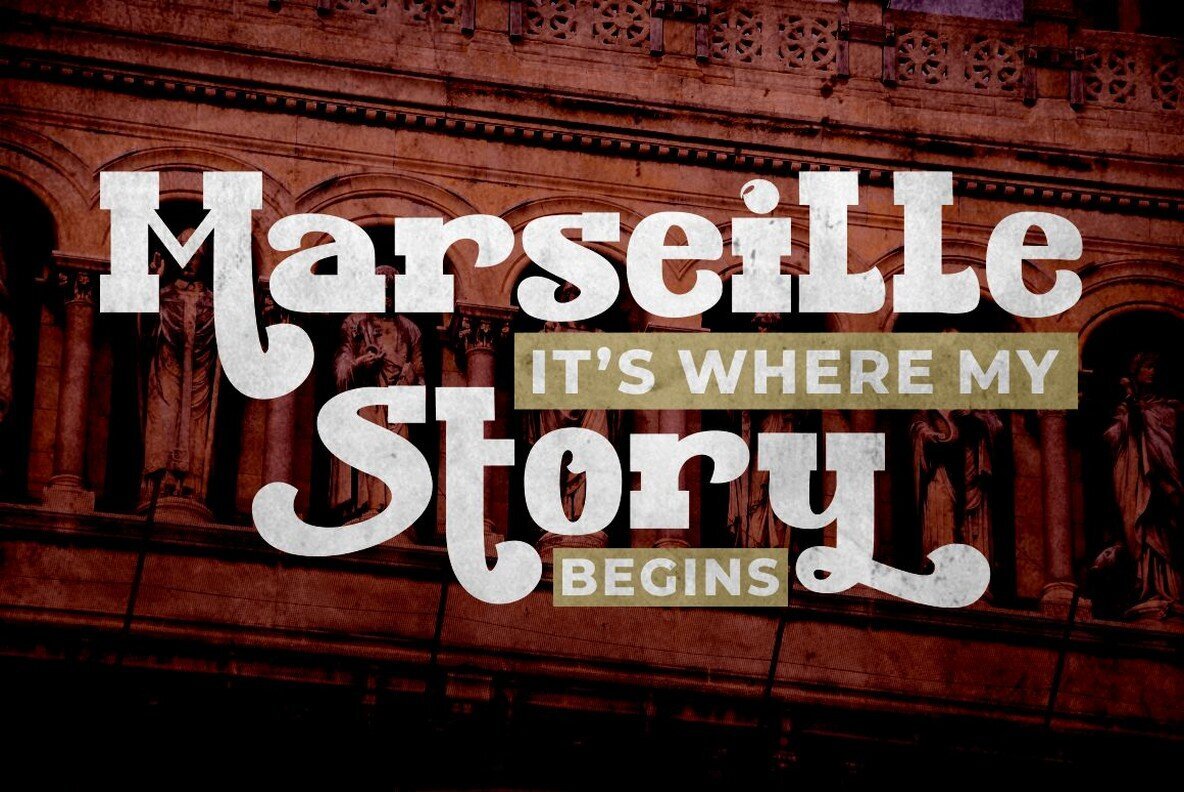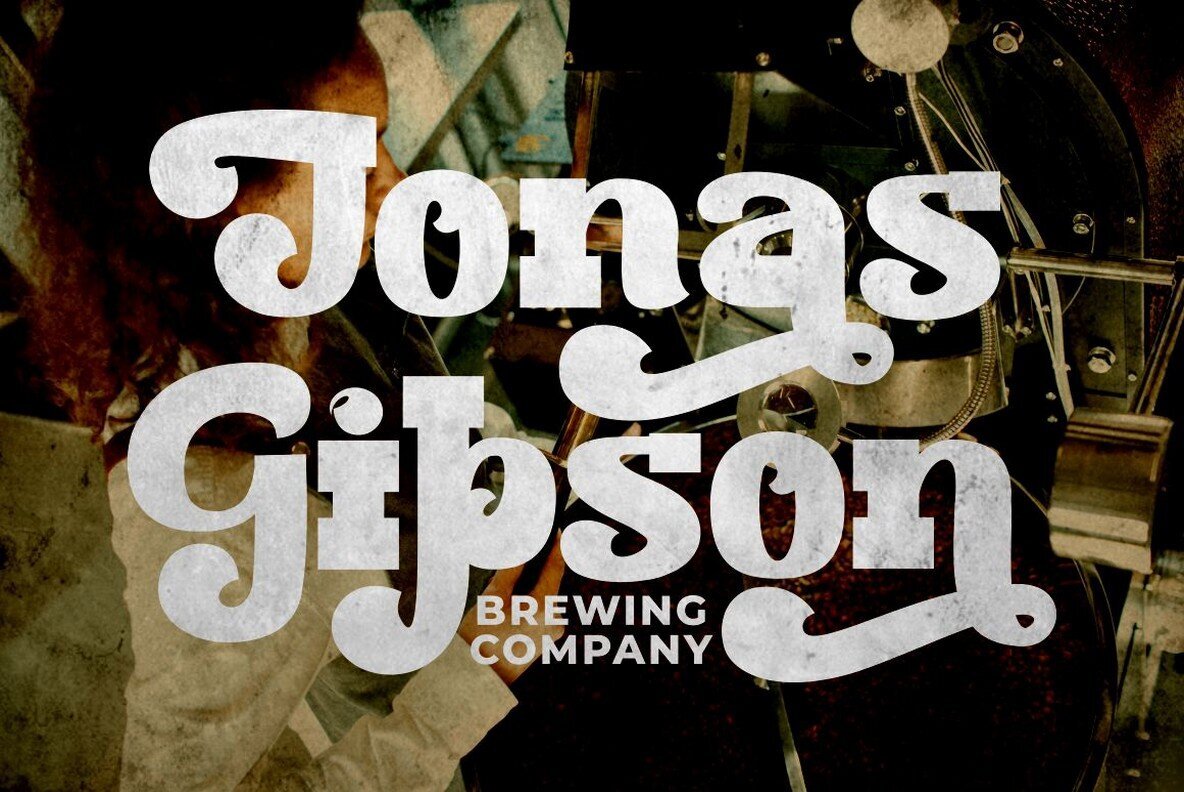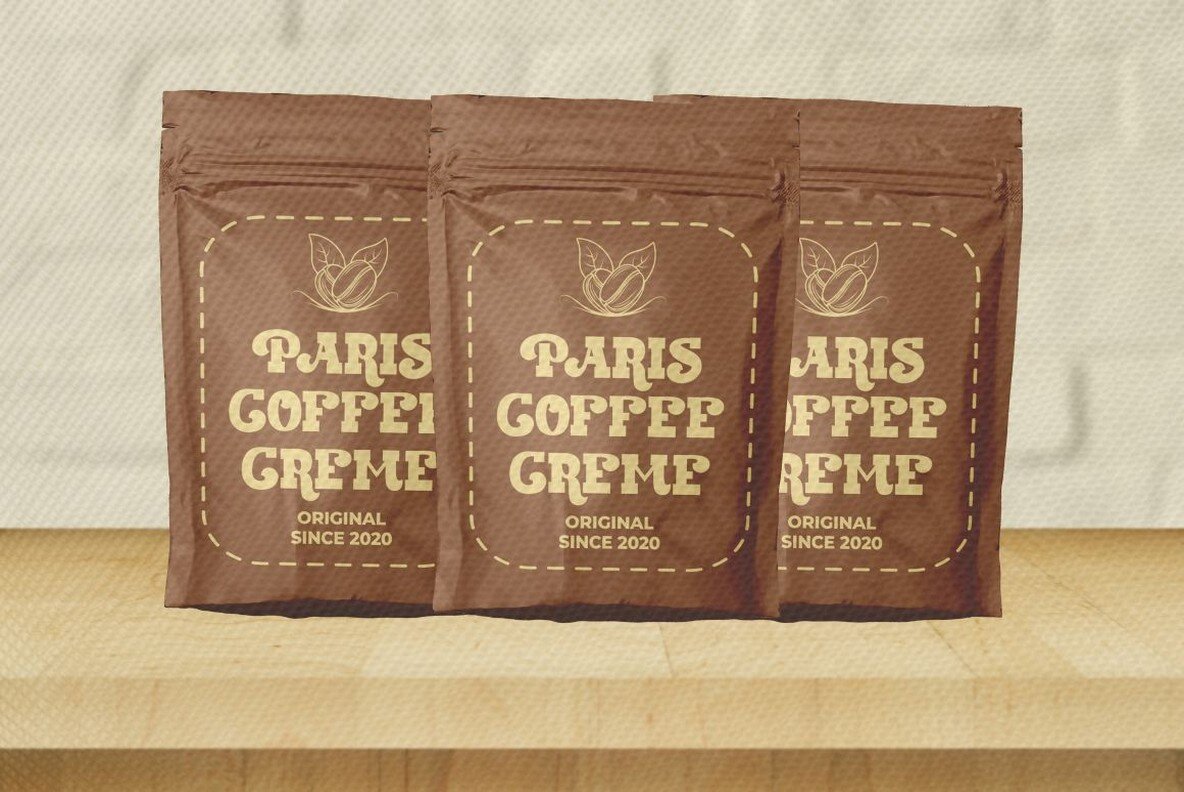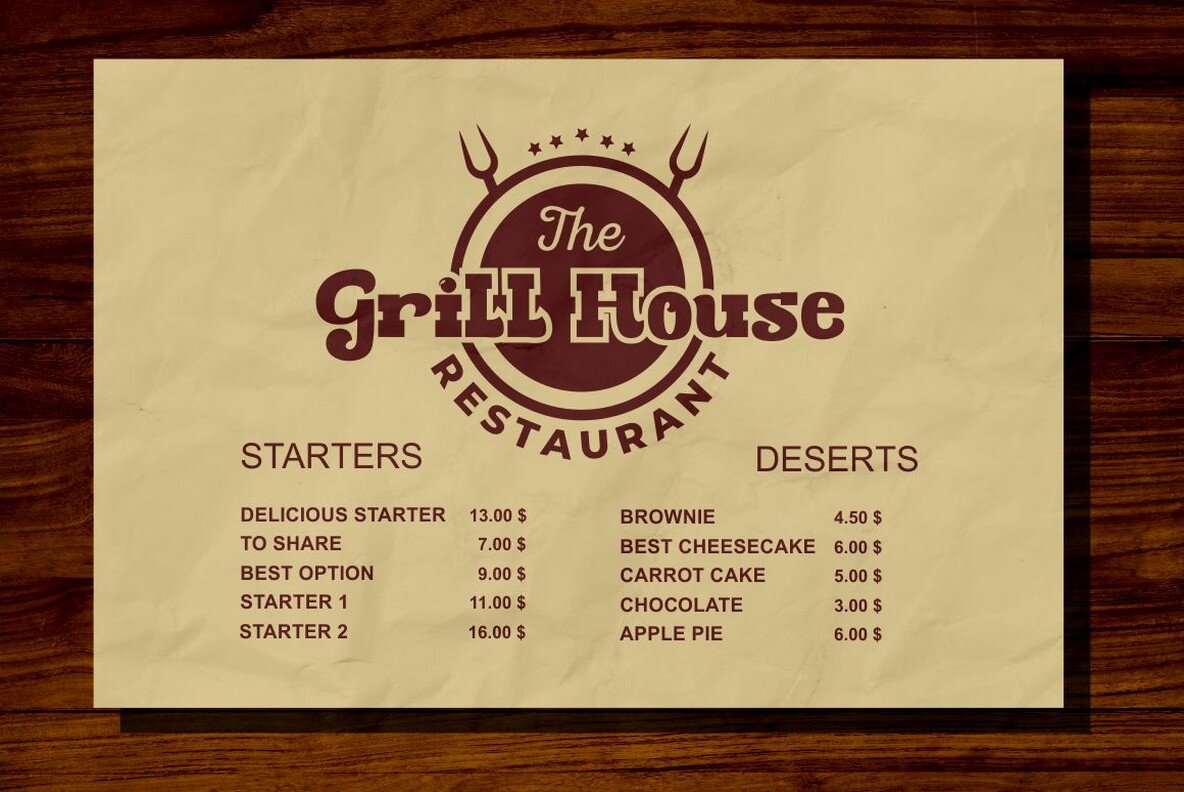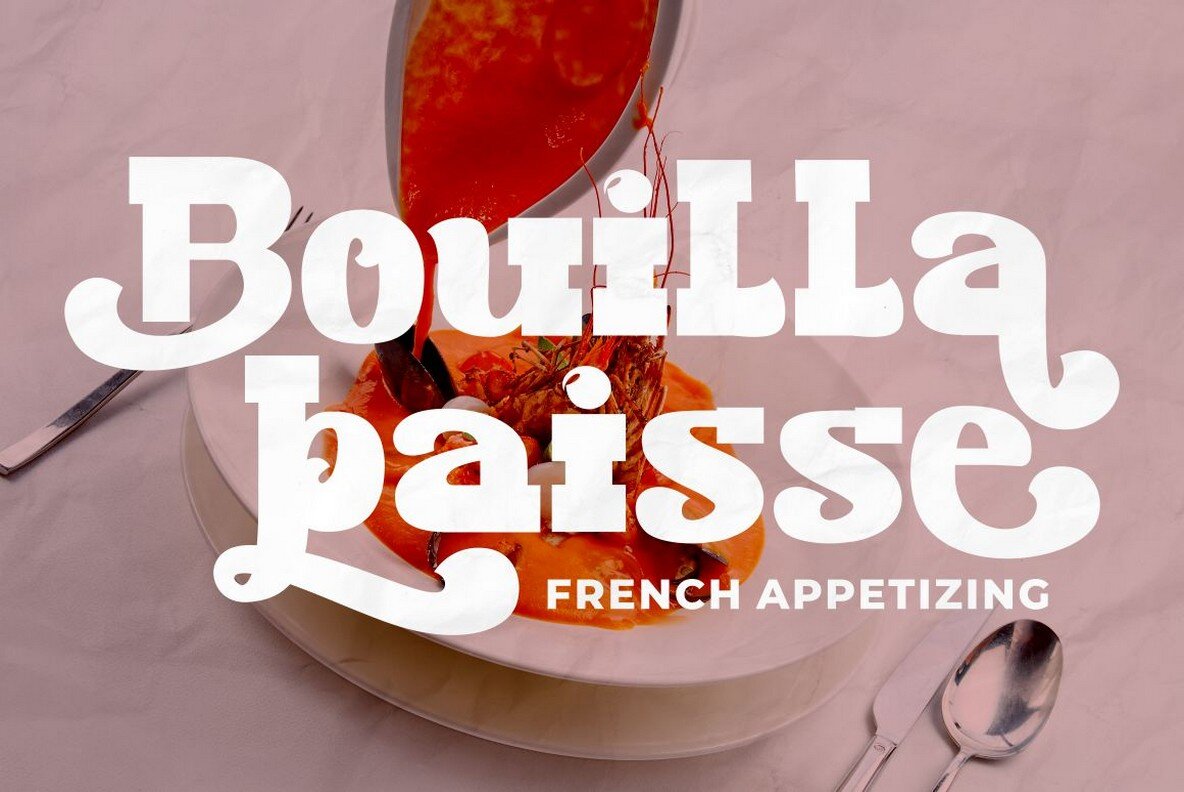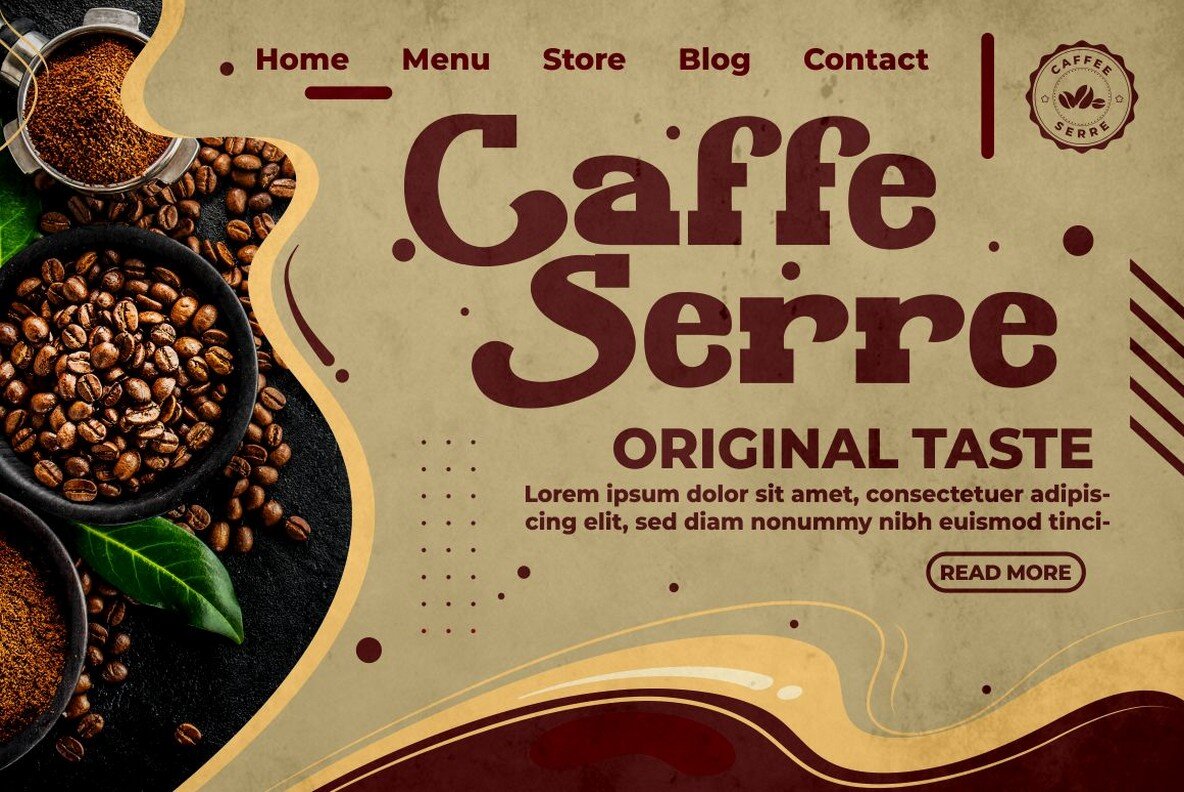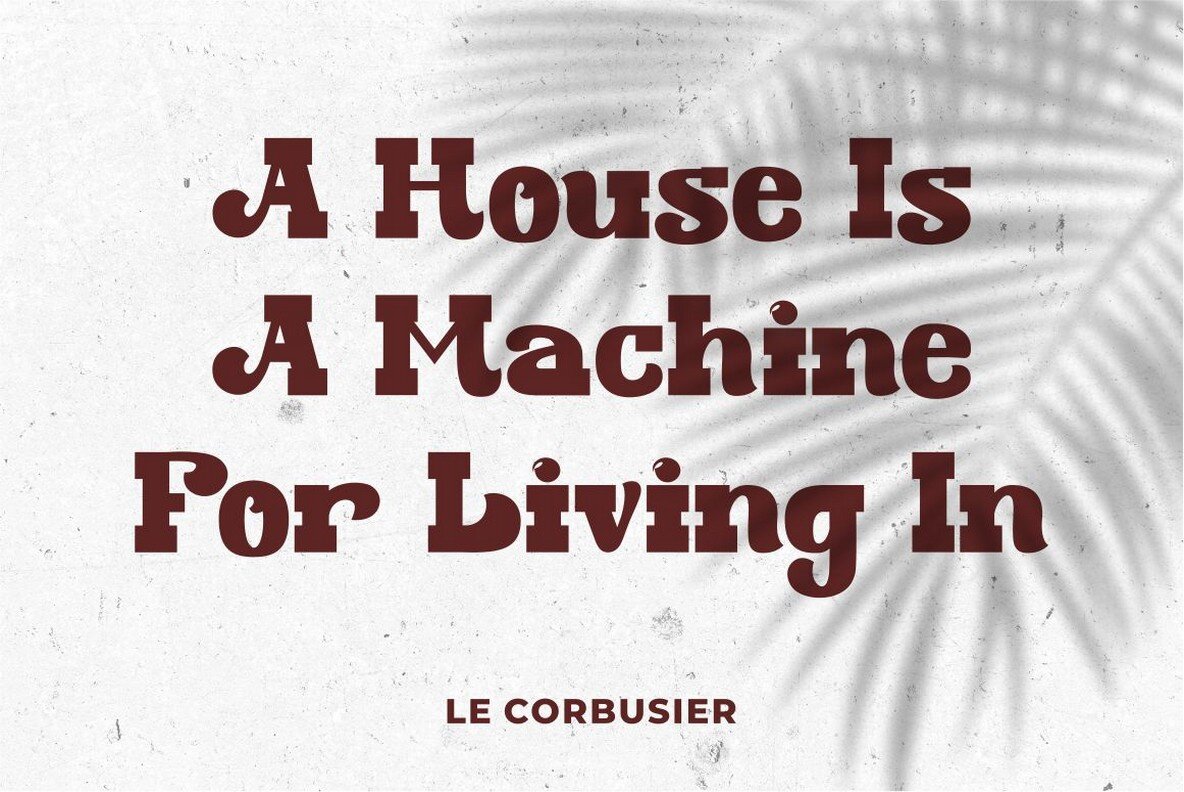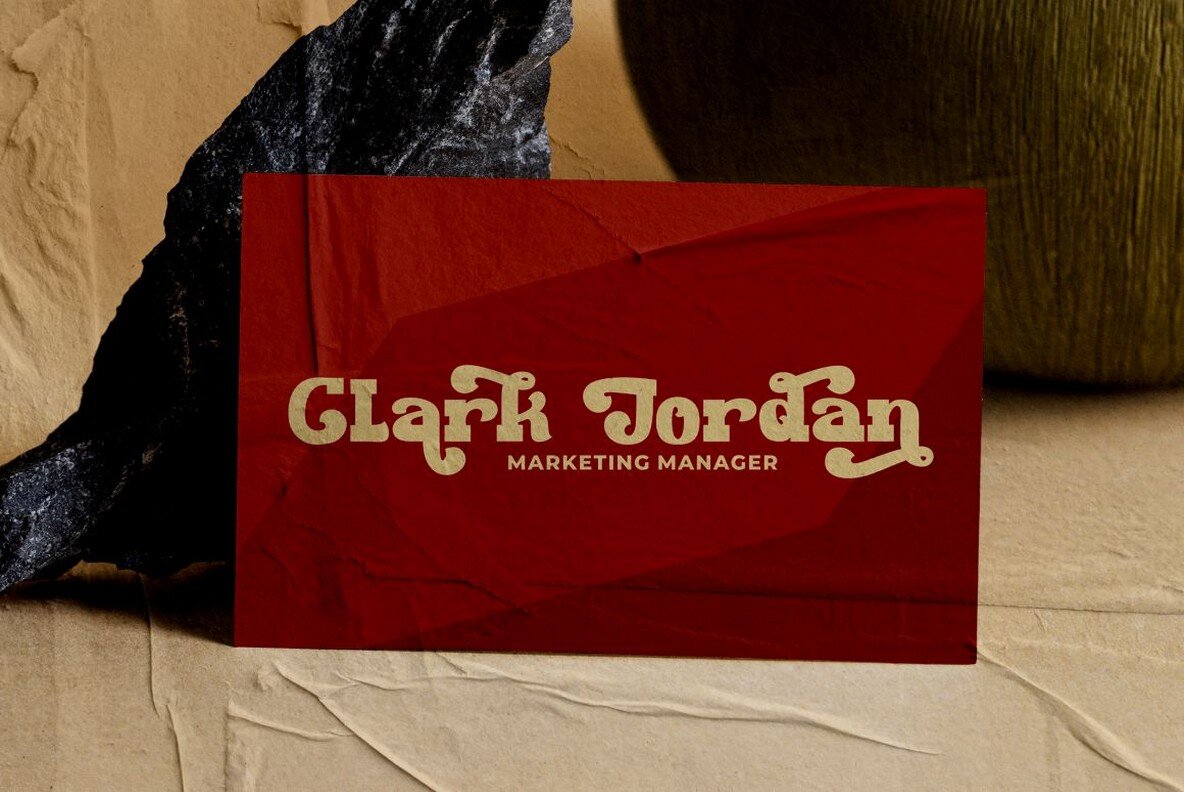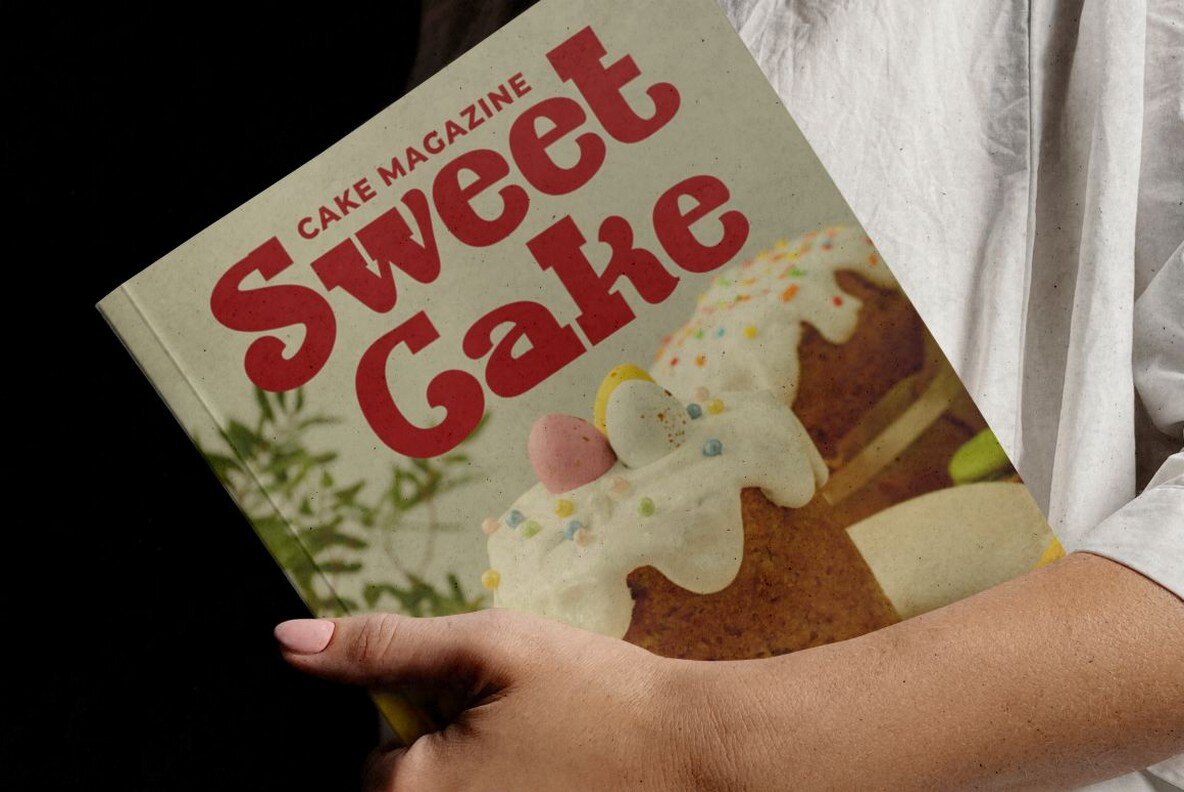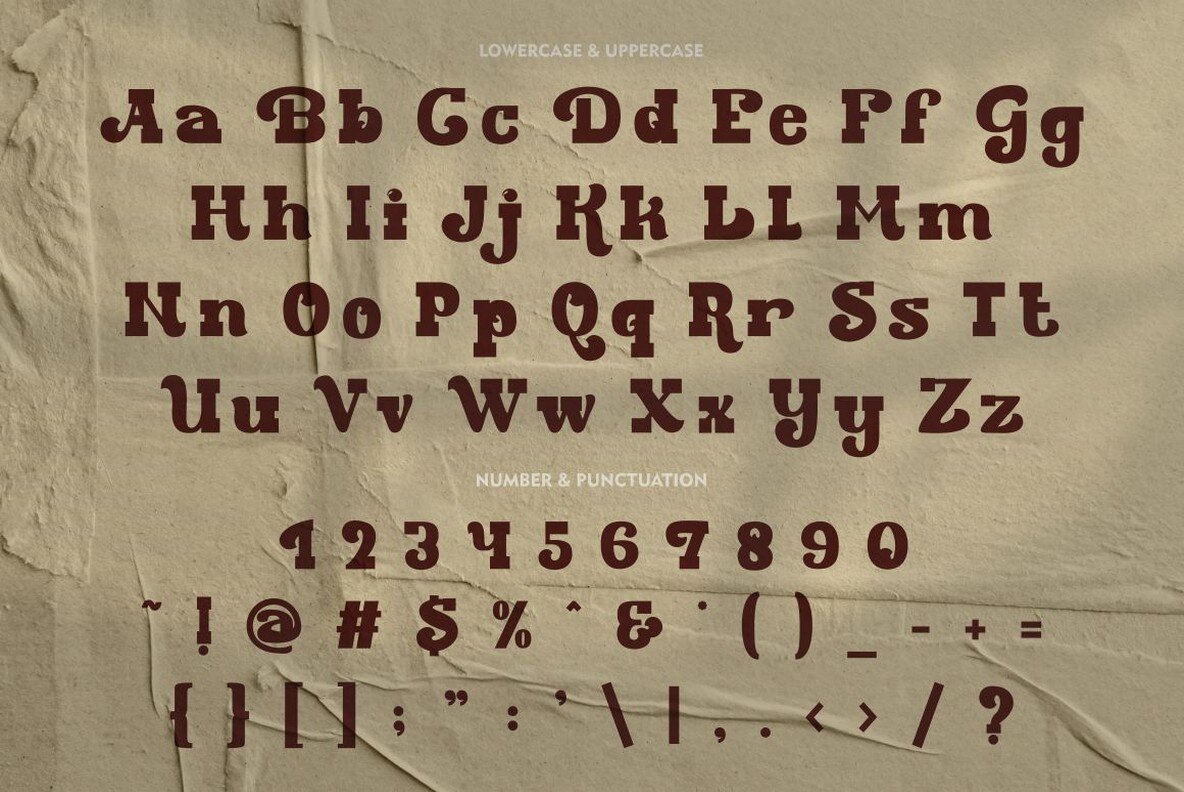
Marsaili Font
Marsaili Regular
Marsaili Stamp
Marsaili is a versatile serif font with a bold presence, perfect for evoking the distinctive flair of 1960s and 70s design aesthetics. This classic typeface, characterized by its beautiful ligatures and extensive array of alternative glyphs, offers full multilingual support. Its groovy and clean lines, coupled with a unique vintage feel, make it an ideal choice for a variety of creative projects. Features: Perfect for headlines, covers, posters, logos, quotes, product packaging, and more, Marsaili's charm lies in its ability to effortlessly blend boldness with elegance across diverse applications.Marsaili: A Vintage Serif with Bold Elegance